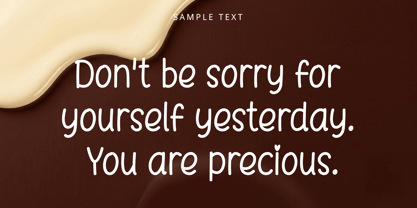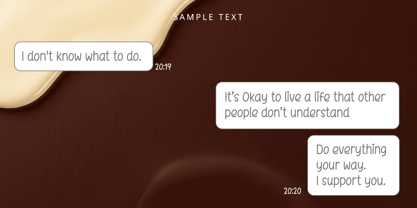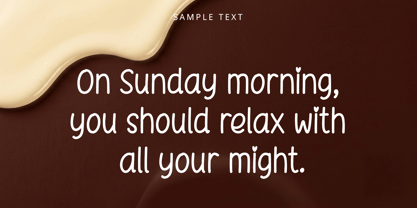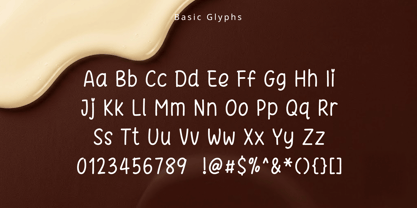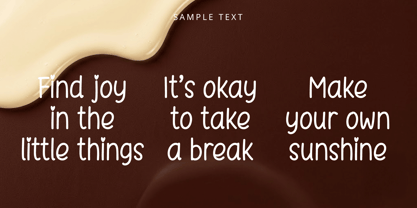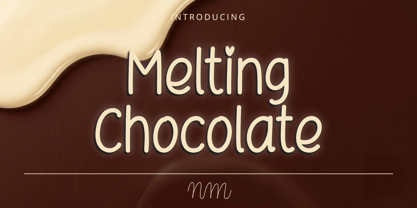
NmMeltingChocolate
by NM Fonts
The NmMeltingChocolate Font Family was designed by Minji Noh and published by NM Fonts. NmMeltingChocolate contains 1 styles. More about this family
Melting Chocolate is a sweet and playful handwritten font inspired by the smooth flow of melting chocolate. Its soft curves and rounded letterforms create a warm, comforting feel that instantly adds charm and personality to any design.
Perfect for branding, product packaging, café menus, bakery labels, greeting cards, social media graphics, and seasonal projects, Melting Chocolate delivers a delightful handmade touch while maintaining excellent readability. Its friendly character makes it an ideal choice for designs that feel cozy, inviting, and full of happiness.
With over 450 glyphs, Melting Chocolate provides extensive character support for a wide variety of creative projects. Whether used on screen or in print, it brings a deliciously warm and memorable style to every design.
Designers: Minji Noh
Foundry: NM Fonts